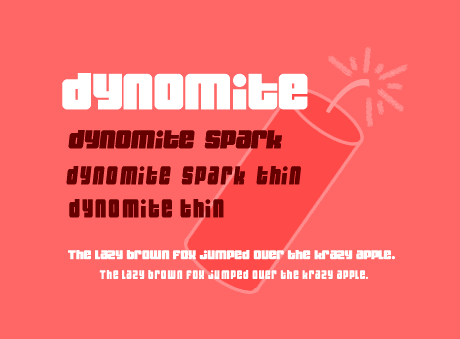
This font is a fatty. This font is a skinny. Whoa, wait a minute? What\’s going on here? Simmer down, folks, here\’s what happened. I made four font styles of this puppy. So come a git \’em. Fat or skinny, italics or not, they are all equally useful.